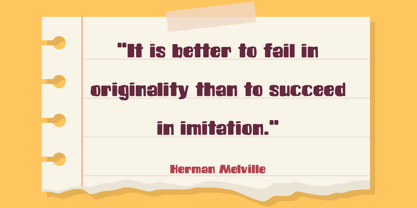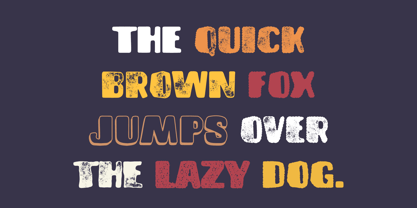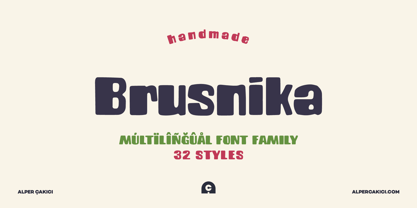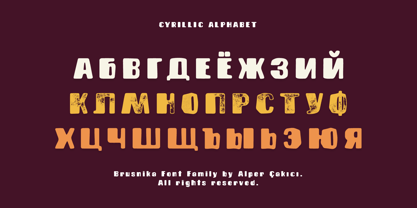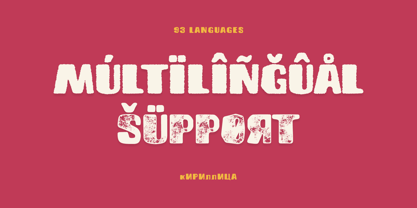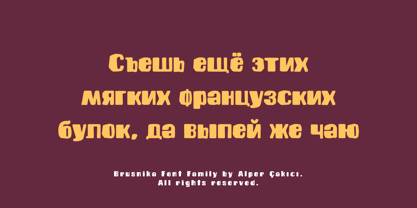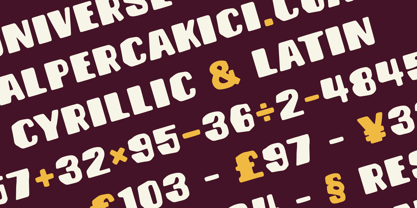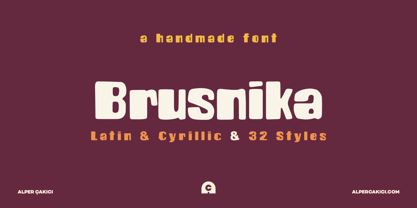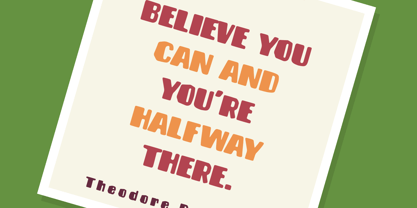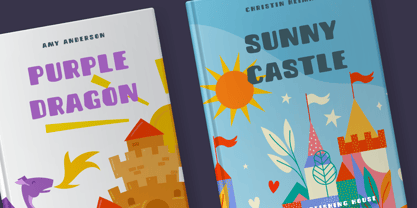
Brusnika
by AlperCakici
The Brusnika Font Family was designed by Alper Çakıcı and published by AlperCakici. Brusnika contains 38 styles and family package options. More about this family
Brusnika is a bold, expressive handwritten typeface crafted to bring warmth, personality, and visual impact to contemporary typography. Defined by its chunky strokes, playful curves, and subtly irregular forms, it captures the authentic charm of hand-drawn lettering while maintaining strong clarity across a wide range of sizes. Inspired by casual brush writing and modern display aesthetics, Brusnika is designed to stand out. It performs beautifully in headlines, branding, packaging, posters, and social media visuals—delivering a confident, friendly tone that works equally well in both playful and professional contexts. Brusnika supports an extended character set covering Latin and Cyrillic scripts, making it a versatile solution for multilingual projects. Whether you're building global identities or localized designs, it ensures visual consistency without sacrificing character. The family features a rich and flexible system of styles, combining structure and texture for maximum creative freedom. From clean and sharp to rough, eroded, and hand-sketched, Brusnika allows designers to easily build layered, dimensional typography. Brusnika is perfect for: Branding & logos Packaging design Posters & headlines Social media graphics Editorial layouts Handcrafted-style projects Add bold character and handcrafted energy to your designs with Brusnika.